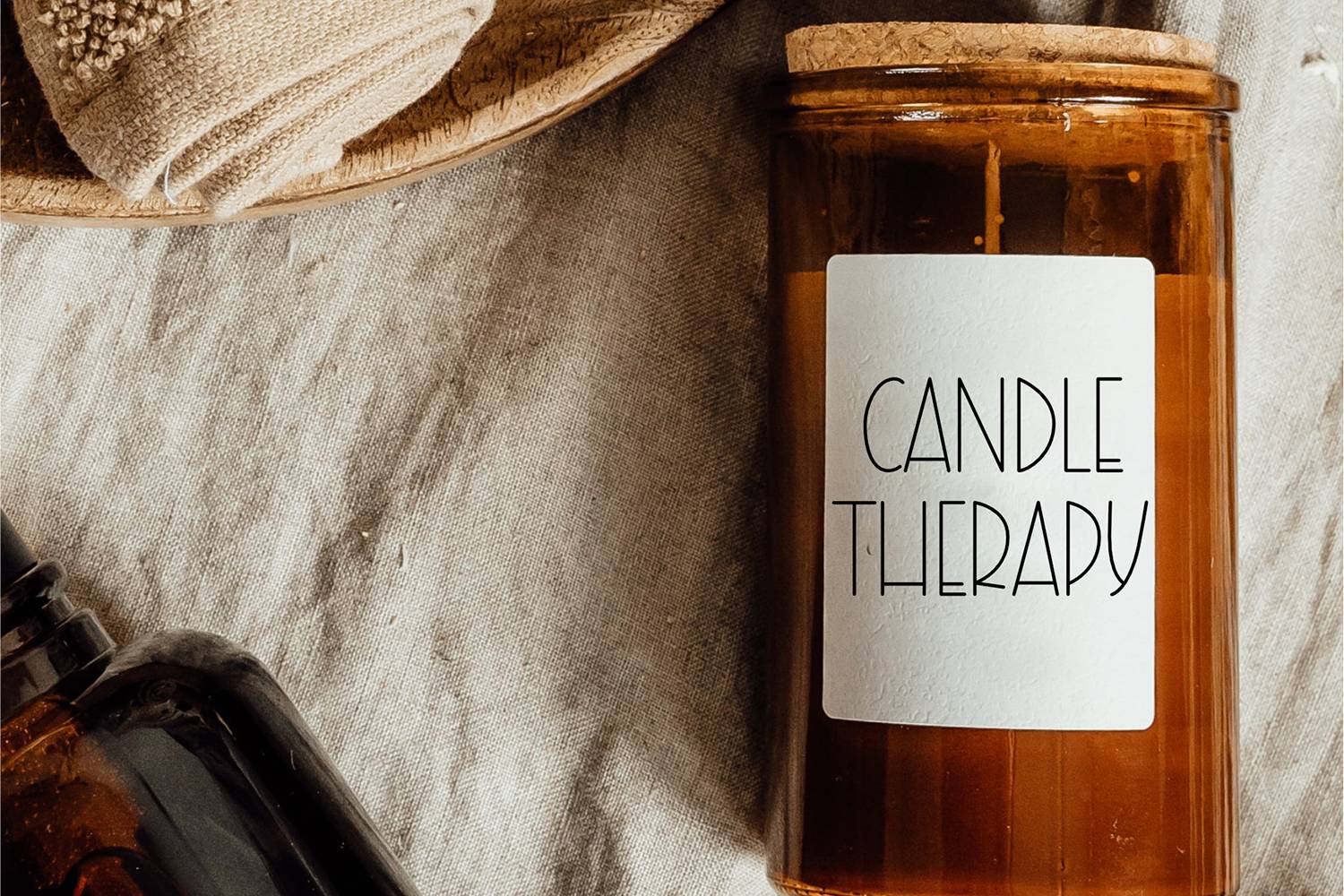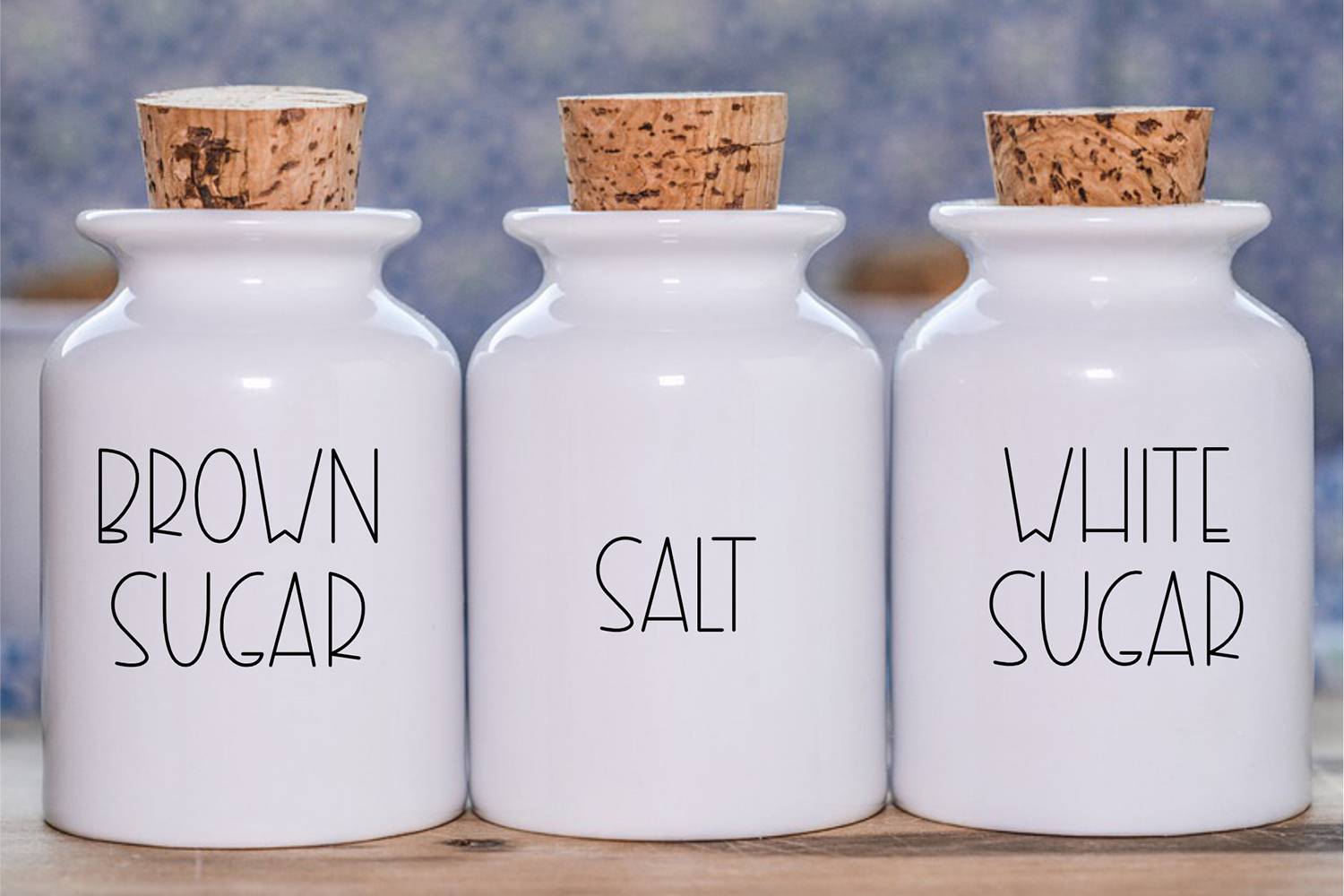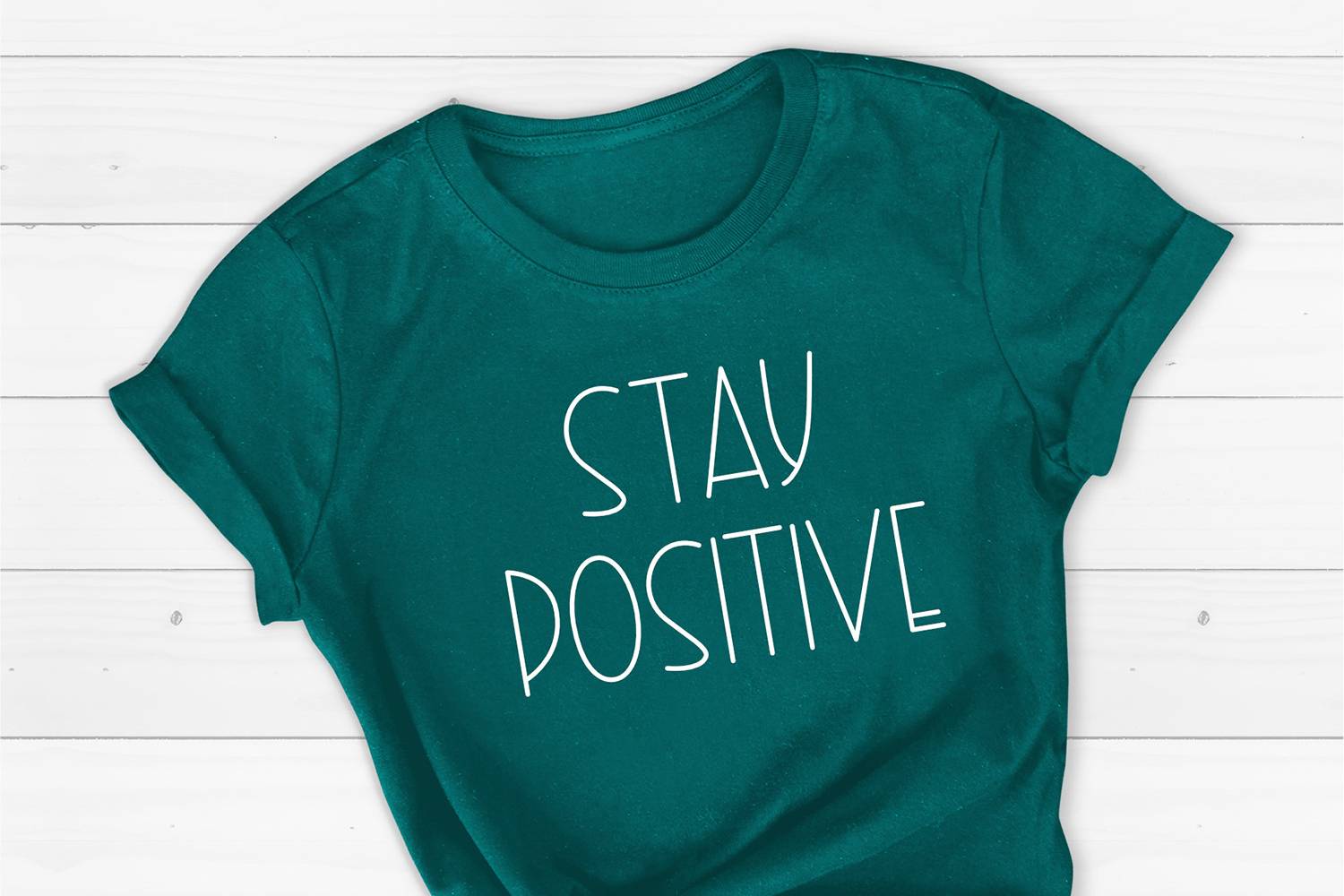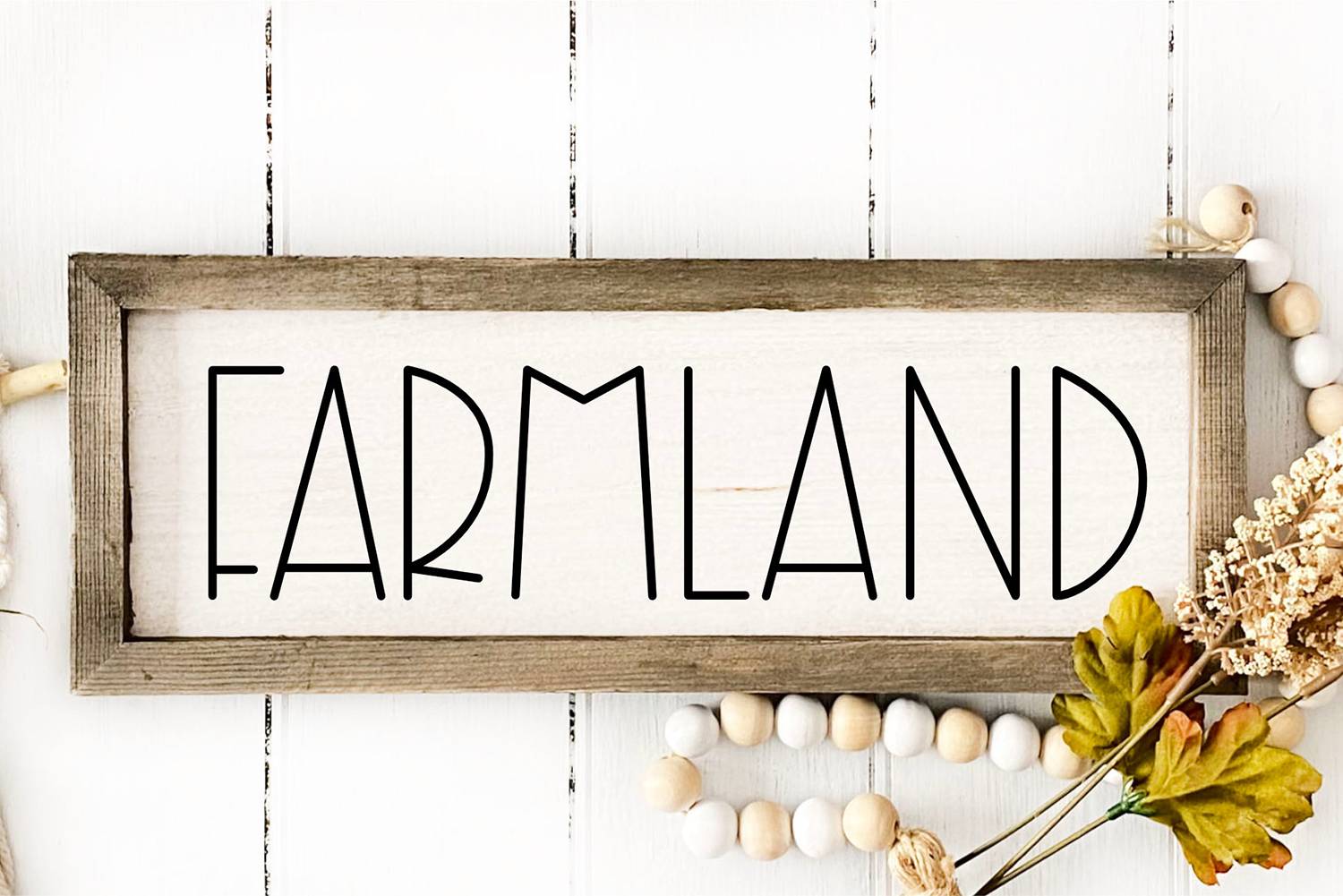
Farmstand Market is a tall, narrow sans serif font with a playful, hand-drawn feel. Its thin strokes and minimalist letterforms create an airy, casual style perfect for friendly, approachable branding or creative headlines. This font works well for packaging, logos, and editorial designs that want to convey a lighthearted, artisanal vibe.
Farmstand Market Font